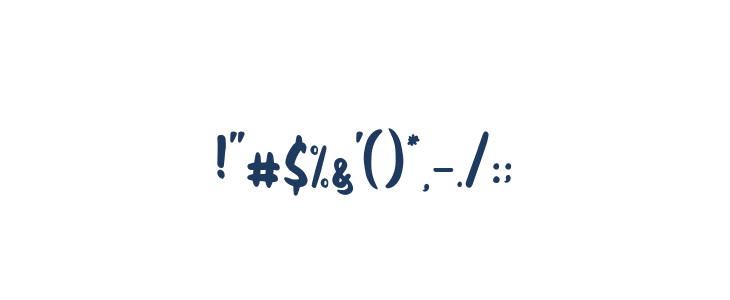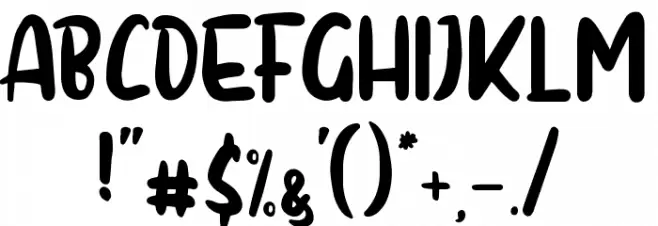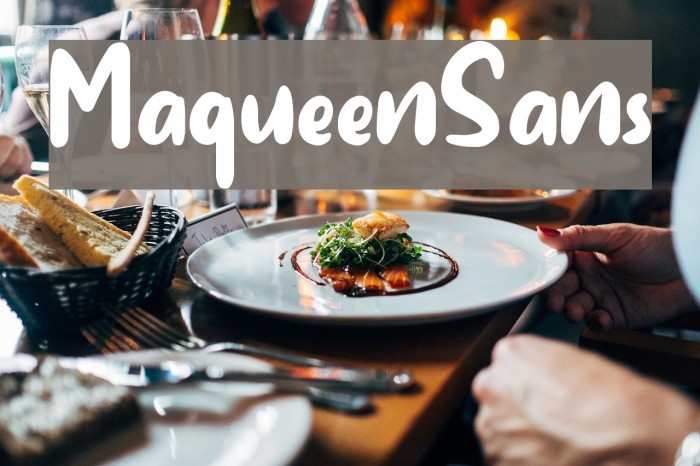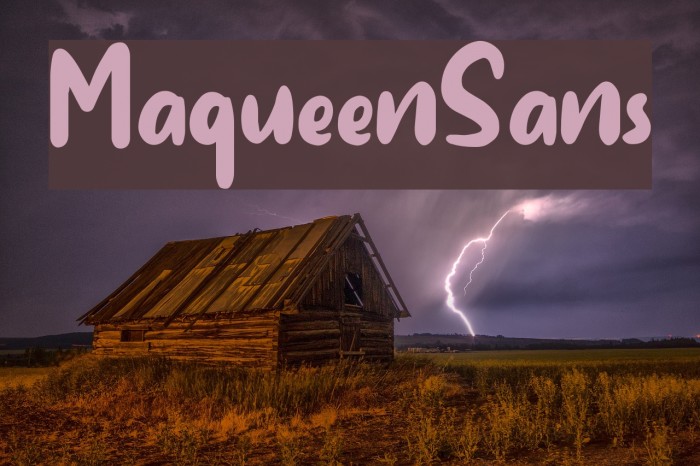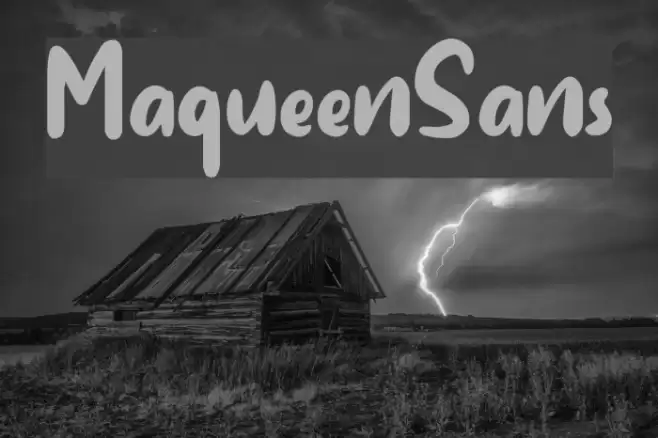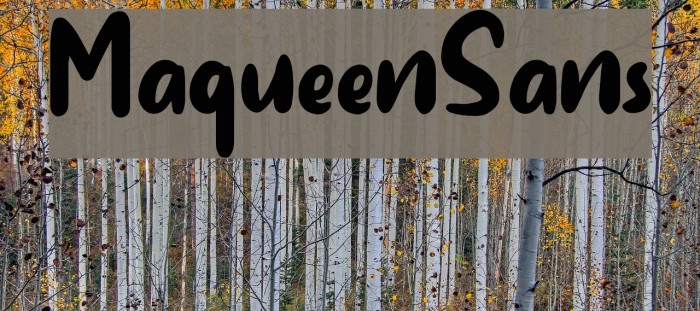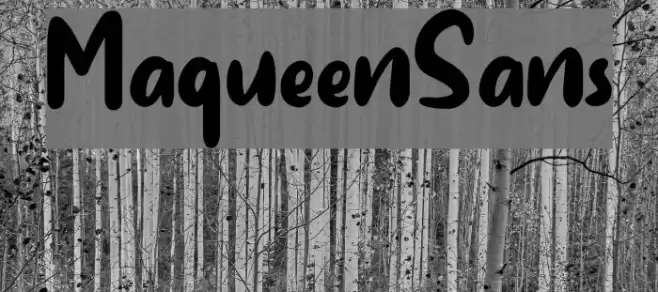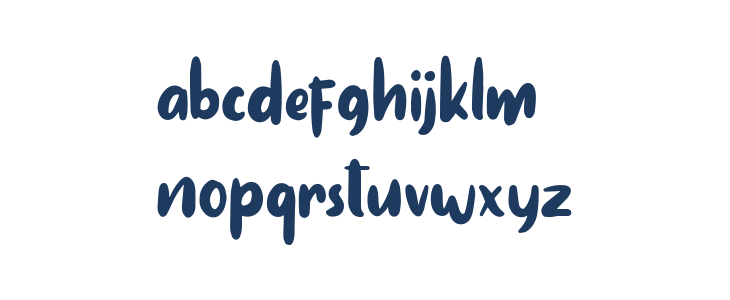
MaqueenSans Font
MaqueenSans Description
This font features a playful and bold style with a handwritten appearance. The characters are rounded and slightly irregular, giving it a casual and friendly look. The uppercase and lowercase letters maintain a consistent style, with the uppercase being slightly larger and more pronounced. The numbers and special characters are designed to match the overall aesthetic, ensuring a cohesive appearance across all text. This font is ideal for projects that require a personal touch or a fun, informal vibe.